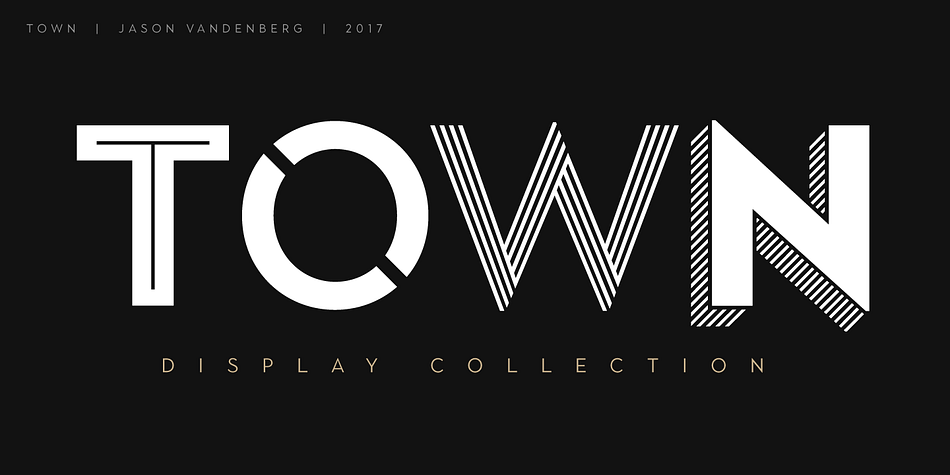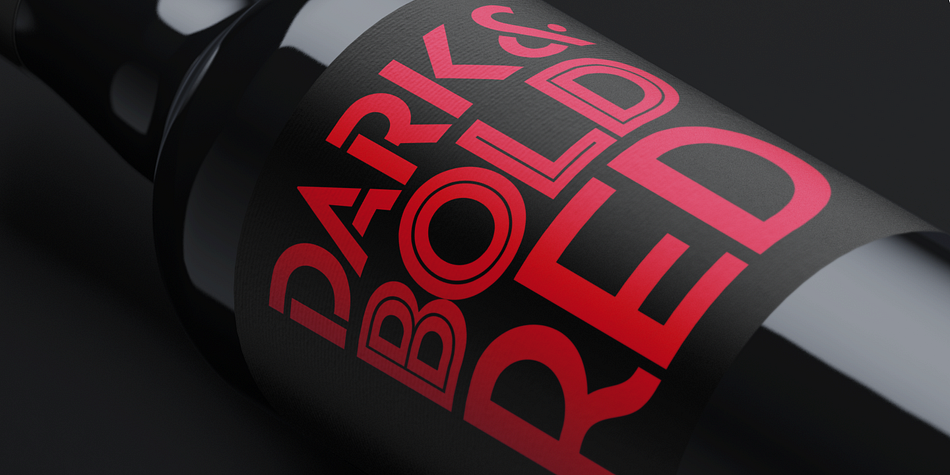
TOWN
Designed by Jason Vandenberg, Town is a multiple classification font family. This typeface has one hundred and twenty-four styles and was published by Jason Vandenberg.
Town is a display collection inspired by art deco and contemporary lettering. The fonts have a classic feel, with contemporary proportions, styling and details. There are eight base weights and nine decorative styles in multiple weights. The variety of styles are designed to create bespoke brand marks, stylish liquor labels, unique restaurant menus, engaging websites and fresh magazine layouts. The fonts are built on the same foundations, so the display and decorative styles can be mixed and matched while maintaining a harmonious look. Several of the styles can also be layered together; add a subtle shadow to your headline or create a full dimensional look with an inline face. The collection is rounded out with two sets of accent fonts, and a set of text weights, with matching italics.